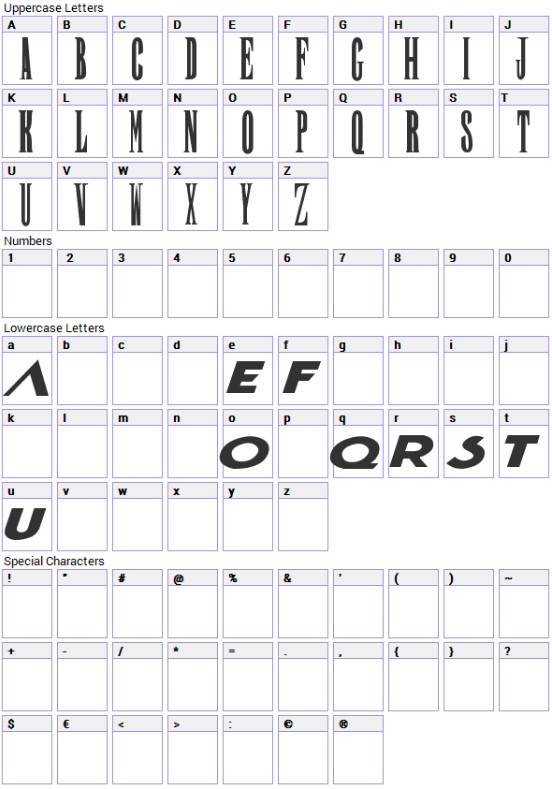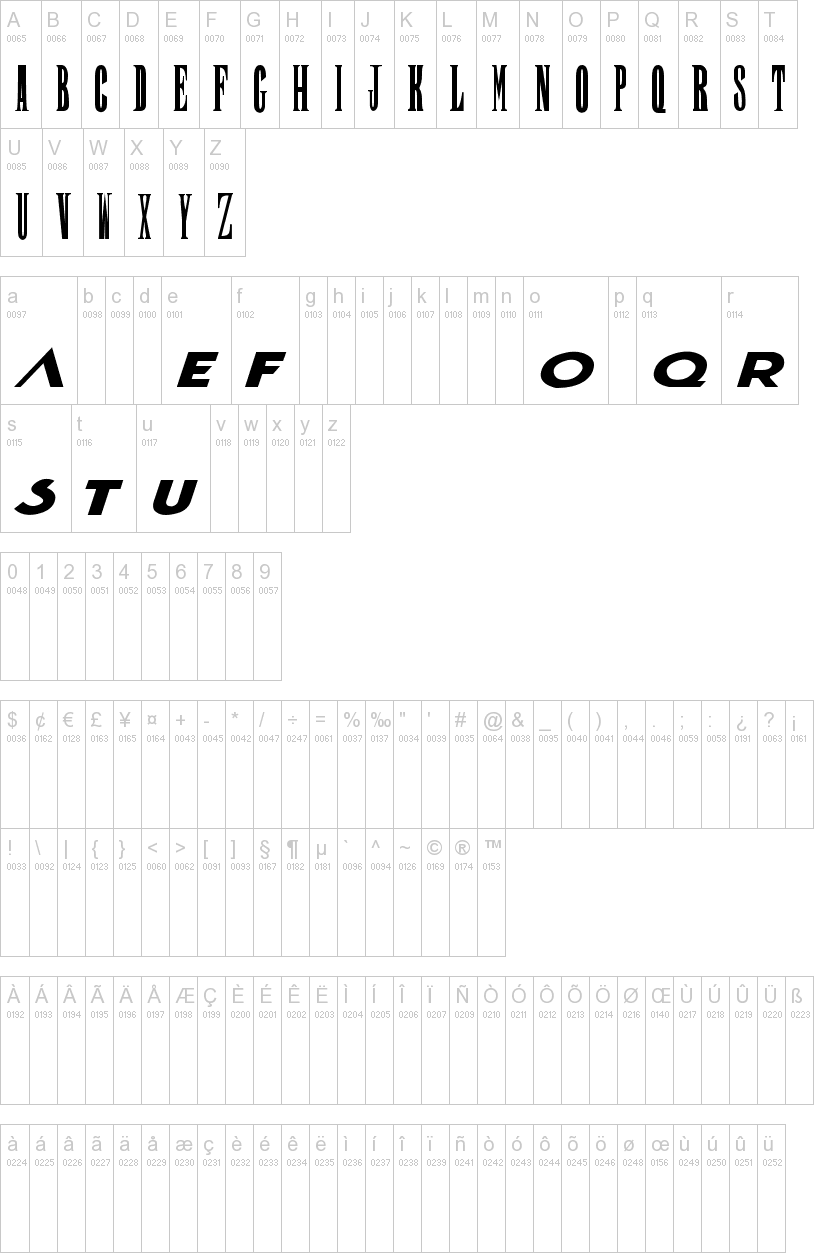
Final Fantasy Font Name. May 10, 2016 @ 3:21am. Or something similar to it.
The Font Used For The “Shadowbringers” Part Is A Modified Version Of Canada Type’s Jupiter Bold.the “Final Fantasy Xiv” Lettering Resembles A.
There Are Many Fonts Using In This Game, The Far As I Know.